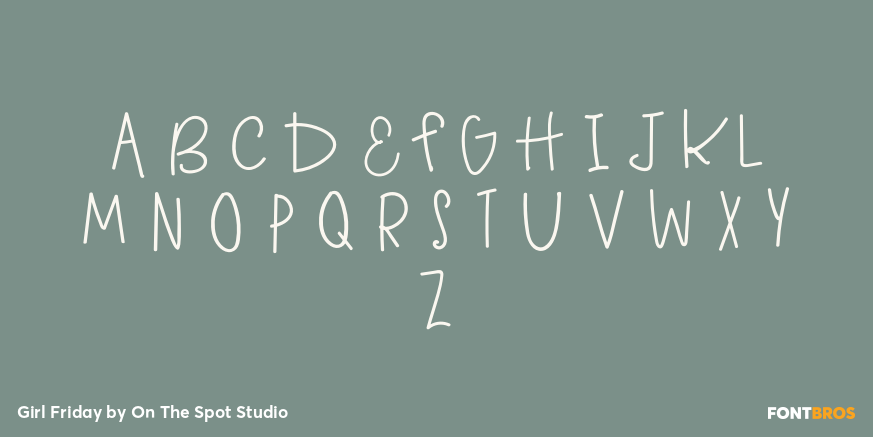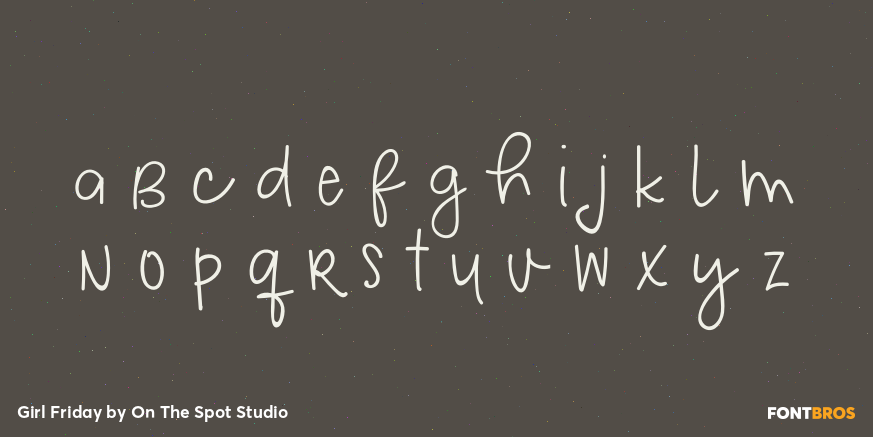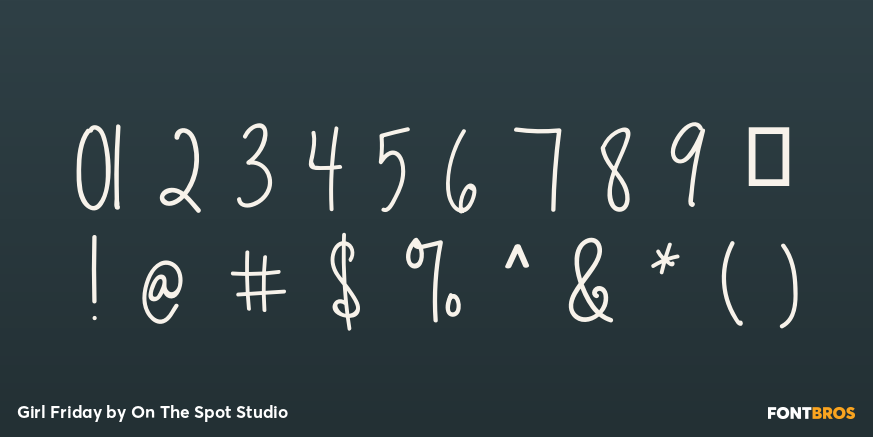
Girl Friday
Font Family by On The Spot Studio
Girl Friday is a fun journaling font great for prints, logo design, tee shirt & product design, and more.